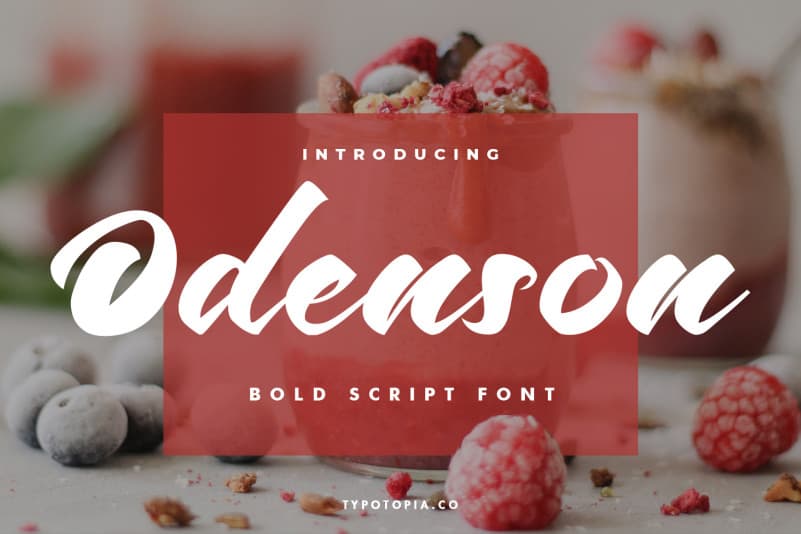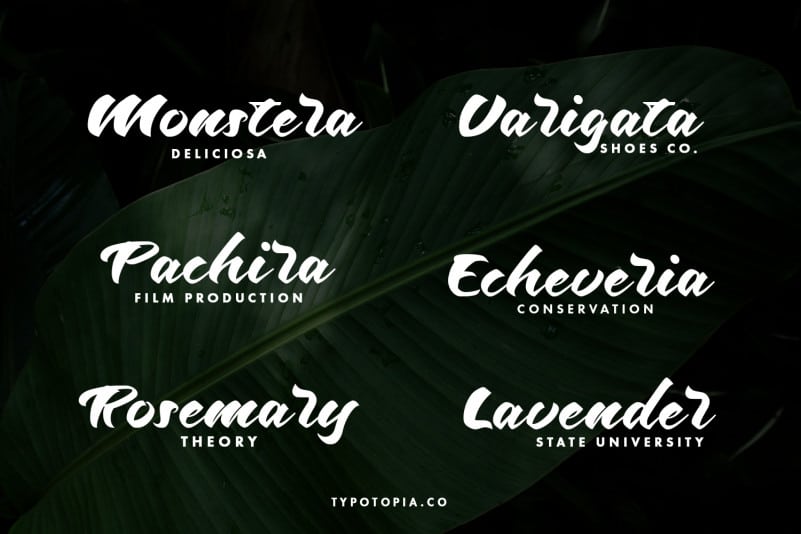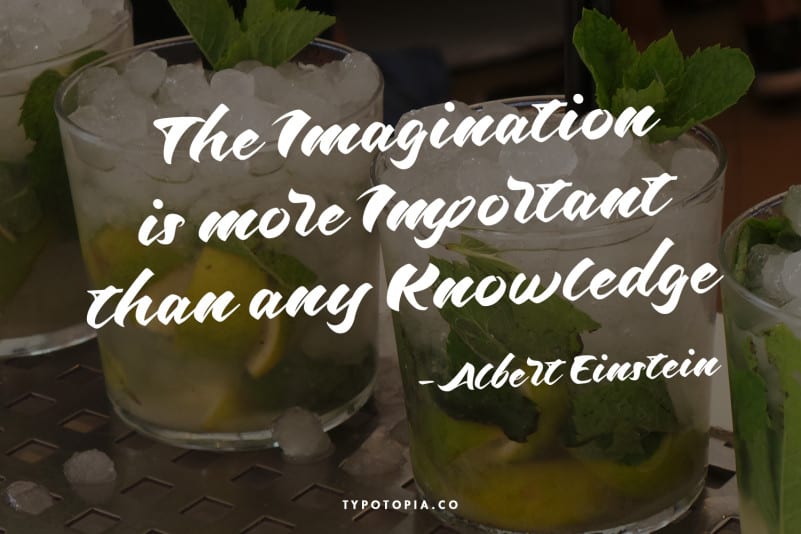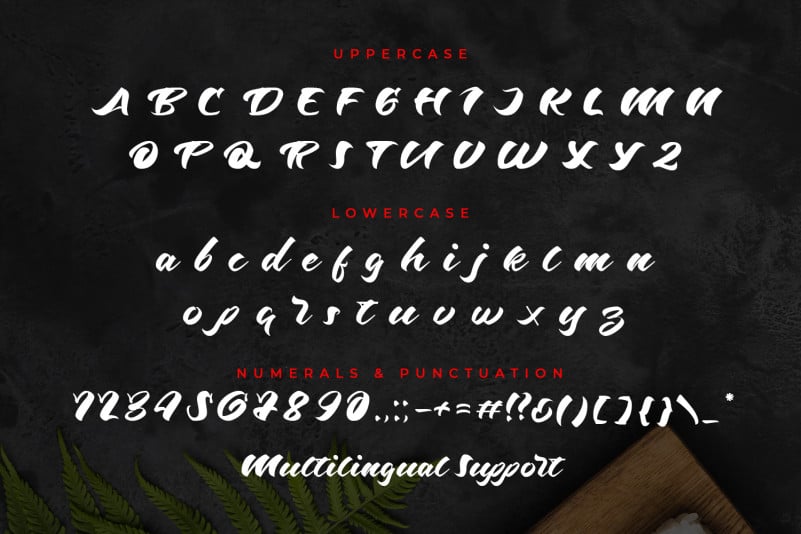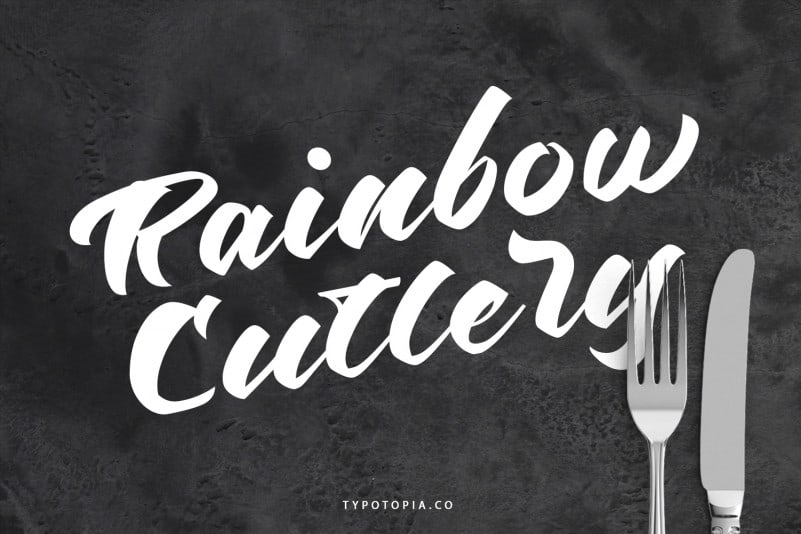
Odenson Script Font
Typotopia Proudly Present Odenson The Script Font. This Fonts Comes is a bold connected script font with a clear style and dramatic movement. Every single letters have been carefully crafted to make your designs looks better.
Odenson Script Font is the great choice for several purpose, such as watermark, logo, business card design, quotes, album cover, invitation letter, stationery, and many other design project that need handwriting taste.